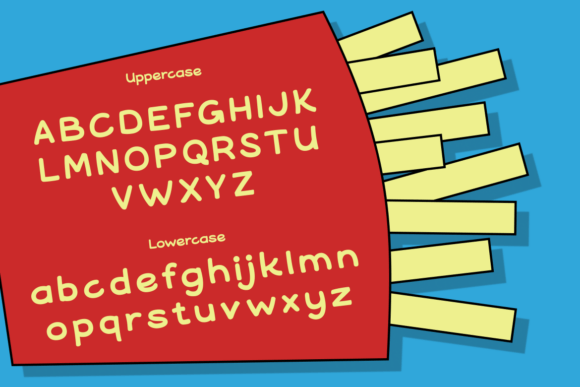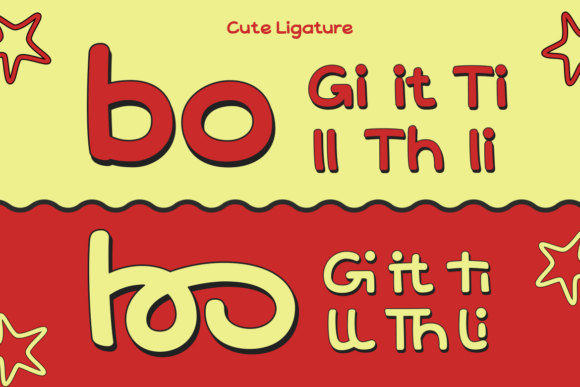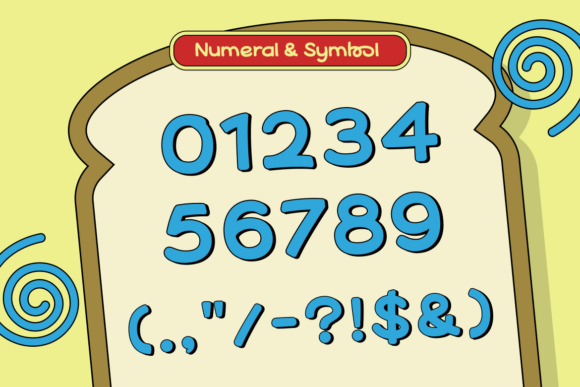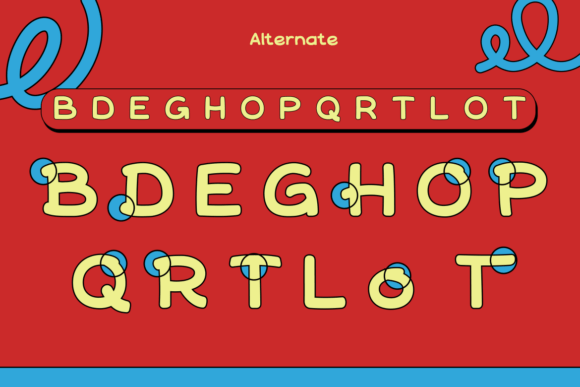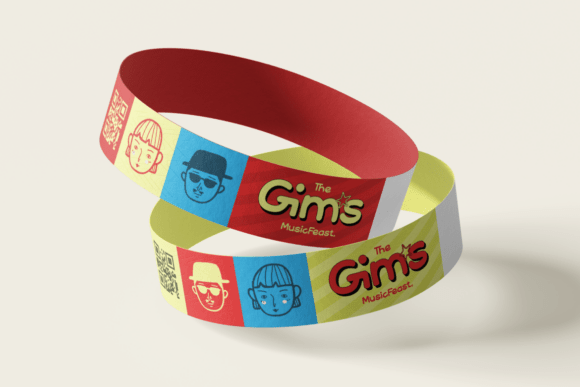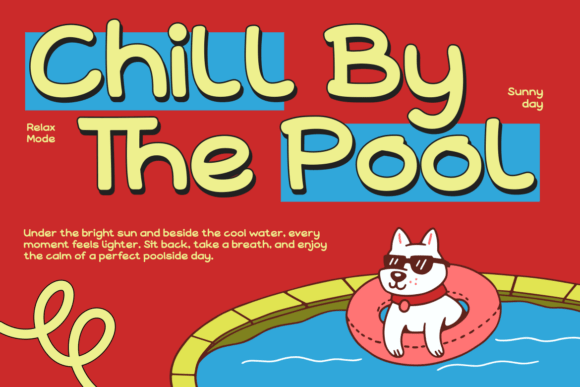
Meet Your New BFF: The Gimbo Font
Have you ever stared at a blank design canvas, feeling like you’re missing that special something to make your project truly pop? You know, that spark that turns a good design into an amazing one? For designers, that moment is often the result of choosing the perfect font – one that captures the essence of your brand and personality.
Enter the Gimbo Font, a delightful sans serif typeface that brings energy, creativity, and a healthy dose of playfulness to your designs. With its rounded letterforms and soft curves, Gimbo is the perfect companion for projects that need a lively and colorful touch. Whether you’re designing for kids, creating a brand that needs a bit of whimsy, or crafting educational materials that engage and inspire, Gimbo Font delivers a joyful and expressive typographic experience.
Gimbo Font Key Features
- Font Family: Gimbo Font is a sans-serif font family designed for digital use. It is available in various styles including regular, bold, italic, and bold italic.
- Unique Characteristics: Gimbo Font features a distinctive rounded shape and a subtle geometric feel, making it a unique addition to any font collection.
Gimbo Font Review
Gimbo Font is an interesting addition to the world of fonts. It has a unique, playful feel that can be used in a variety of creative projects.
What works well: ✨
- Highly legible, even at smaller font sizes.
- Has a fun, whimsical feel that can add a lot of personality to a design.
- Includes a range of weights and styles to give designers a lot of flexibility.
- Works well in both digital and print applications.
Limitations: ⚠️
- May not be suitable for formal or professional projects due to its playful feel.
- Some letters and characters may not render correctly in certain fonts or environments.
- May not be as versatile as other fonts, limiting its use in certain design contexts.
Overall, Gimbo Font is a solid choice for designers looking for a fun and playful font to add some personality to their projects. However, it may not be the best choice for every project, and designers should be aware of its limitations.
For best results, use Gimbo Font for headings and subheadings, as it is most effective in larger font sizes.
Use Gimbo Font to add a unique touch to your designs, especially for titles and headings.
Gimbo Font is ideal for:
– Creative projects, such as graphic design and digital art.
– Branding and marketing materials, such as logos and business cards.
– Editorial and publishing projects, such as book covers and magazine titles.
Alternatives to Gimbo Font
Pacifico is a beautiful, elegant, and stylish script font perfect for creating a luxurious and sophisticated look. It’s ideal for use in branding, advertising, and packaging design. Pacifico is more elegant and refined compared to Gimbo Font, which is more playful and casual.
Great Vibes is a modern and elegant script font that’s perfect for creating a sense of excitement and energy. It’s ideal for use in branding, advertising, and editorial design. Great Vibes is more vibrant and energetic compared to Gimbo Font, which is more relaxed and casual.
Dancing Script is a beautiful and elegant script font that’s perfect for creating a sense of drama and flair. It’s ideal for use in branding, advertising, and packaging design. Dancing Script is more dynamic and expressive compared to Gimbo Font, which is more subtle and understated.